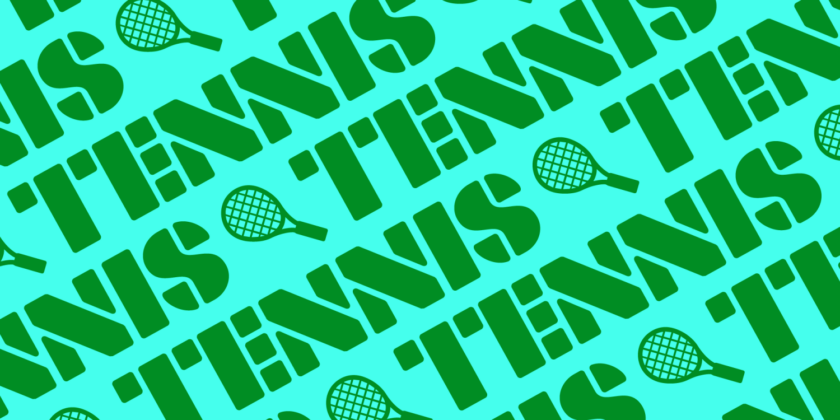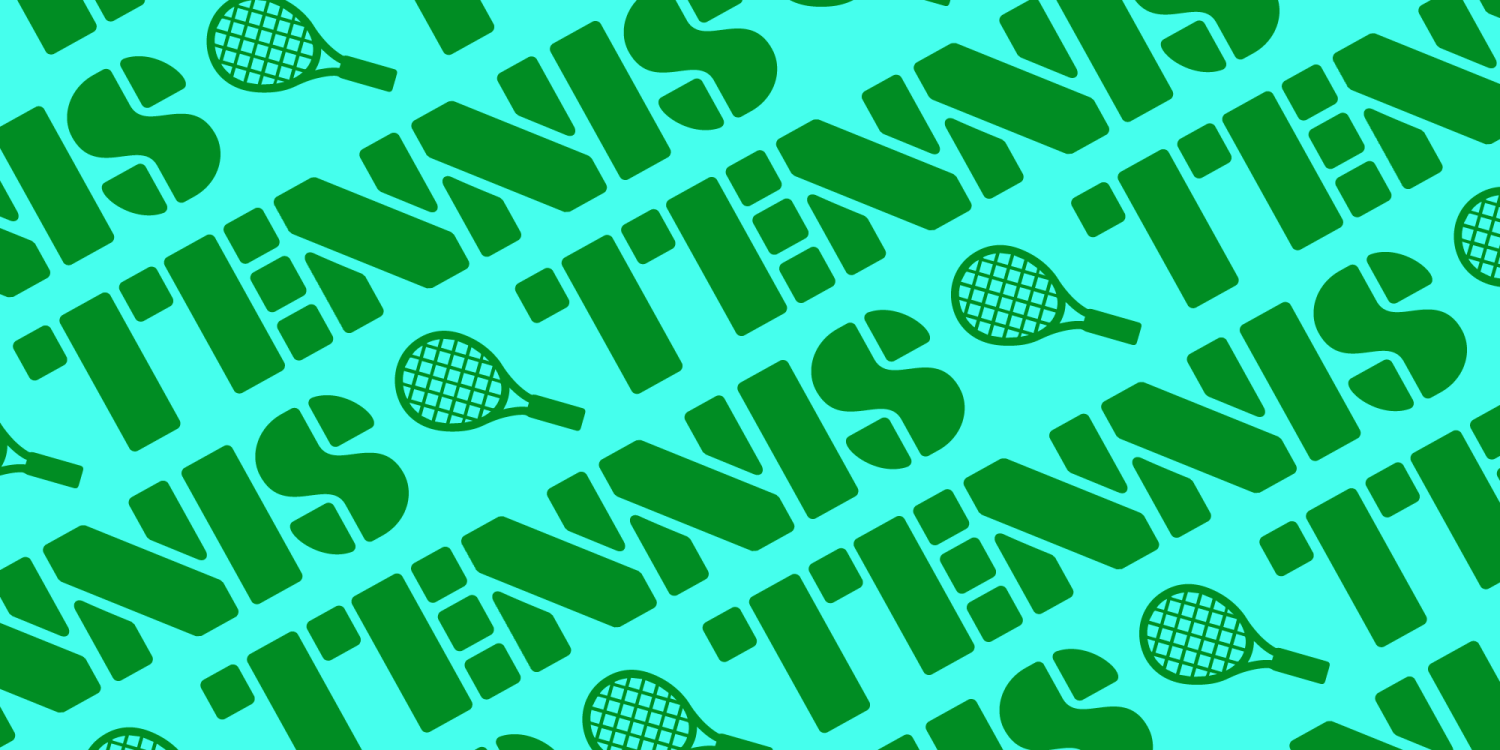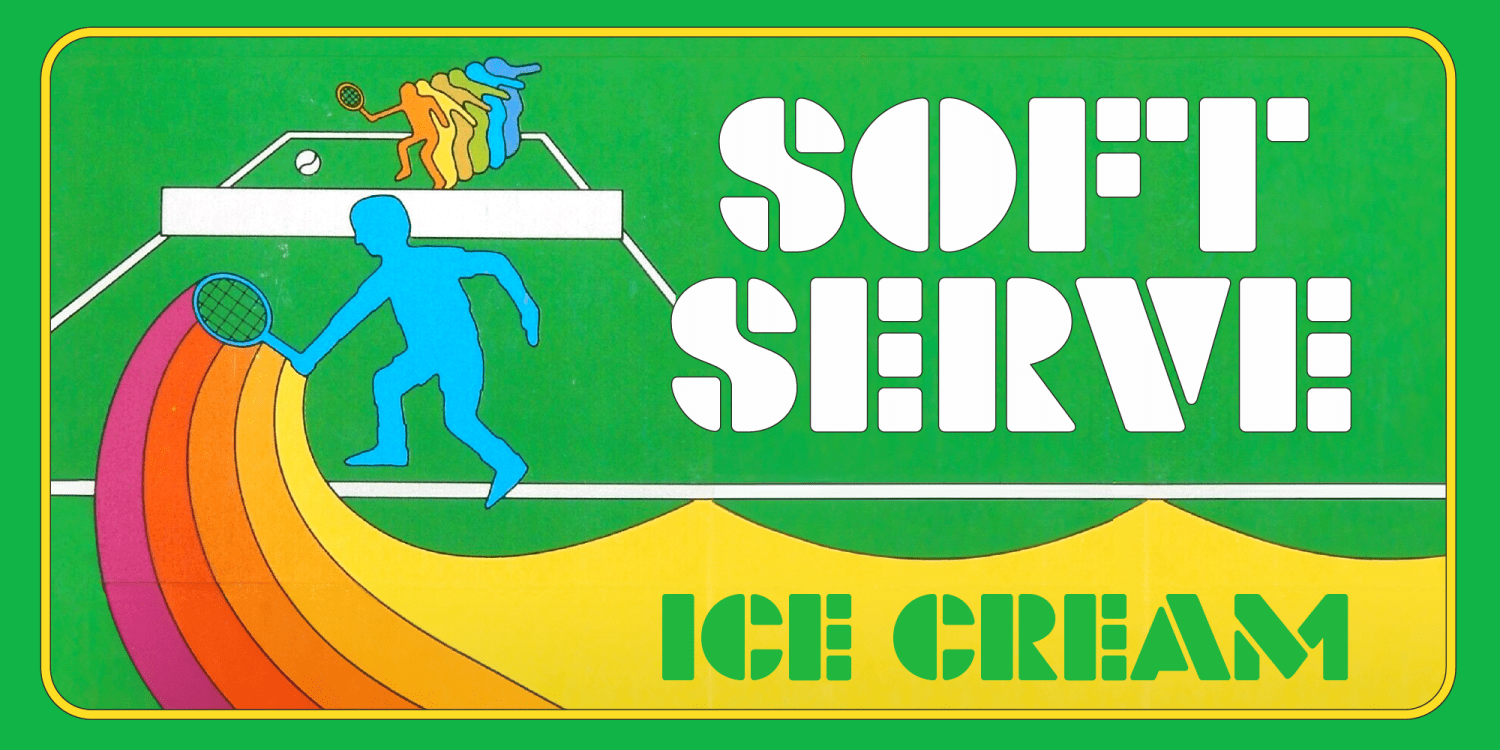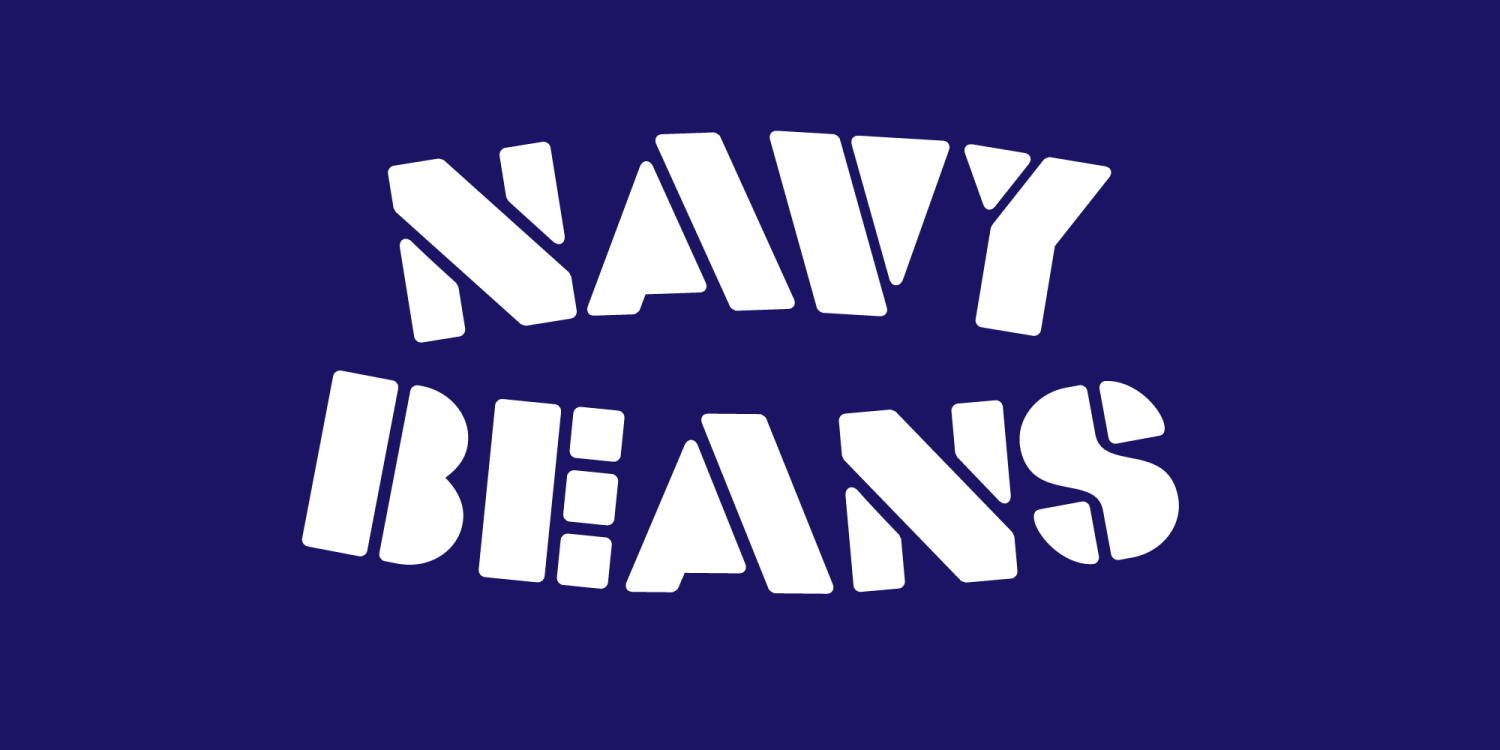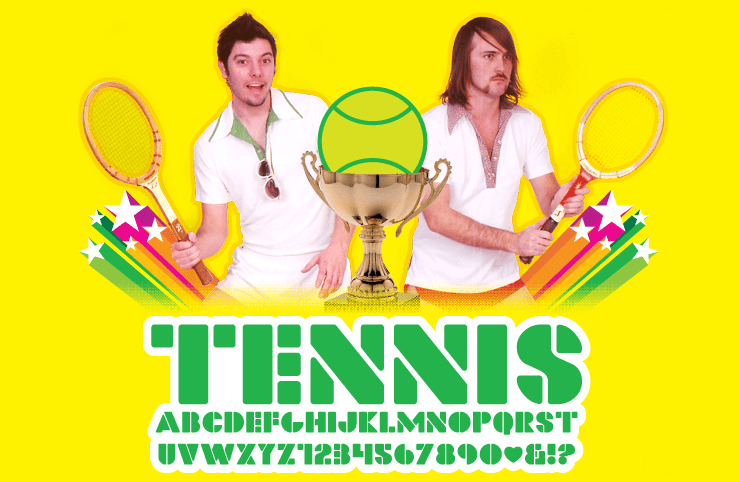
Tennis
Before you get all hot and bothered, hear me out: I named this font Tennis because I had this t-shirt when I was a little kid in the 70's and it said "tennis" all over it in a font that was just like this. Well, I really liked that shirt.…